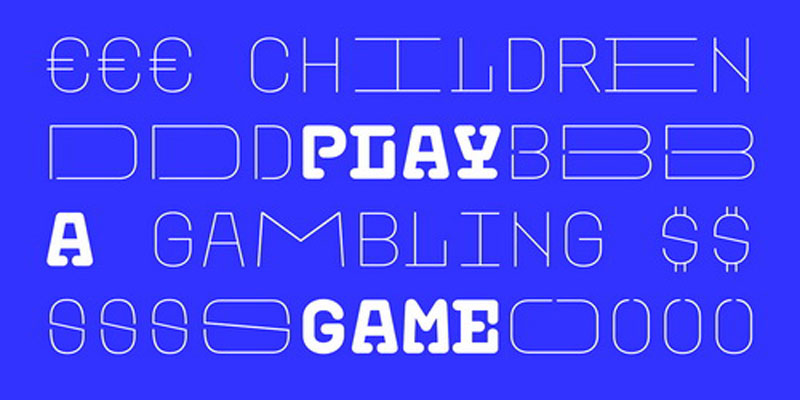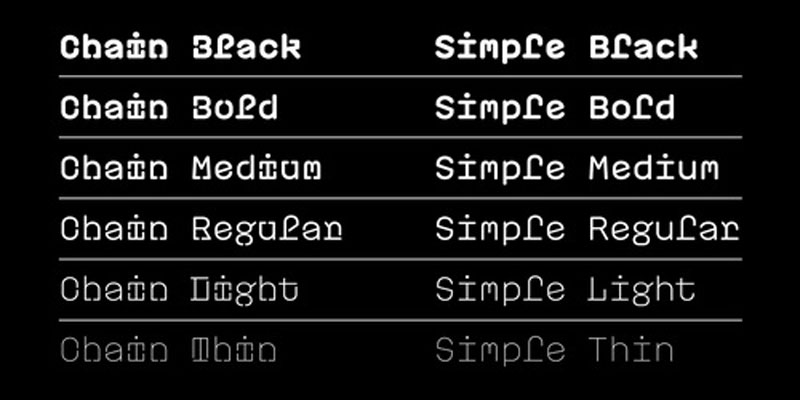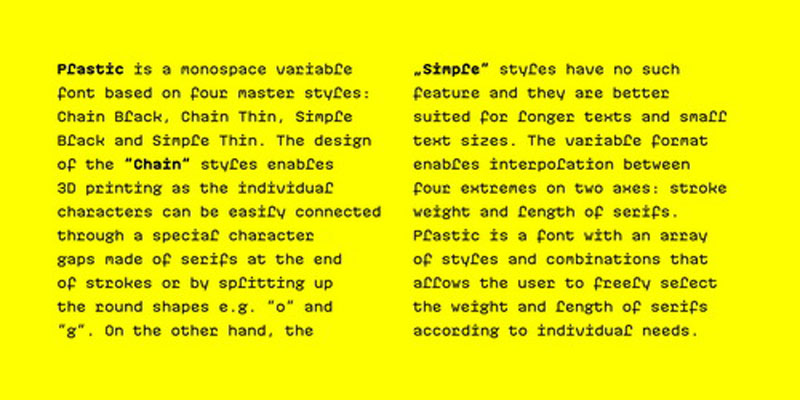
Plastic Font Family
Plastic is a monospace variable font based on four master styles: Chain Black, Chain Thin, Simple Black and Simple Thin. The design of the “Chain” styles enables 3D printing as the individual characters can be easily connected through a special character gap made of serifs at the end of strokes or by splitting up the round shapes e.g. “o” and “g”. On the other hand, the “Simple” styles have no such feature and they are better suited for longer texts and small text sizes.
The variable format enables interpolation between four extremes on two axes: stroke weight and length of serifs. Plastic is a font with an array of styles and combinations that allows the user to freely select the weight and length of serifs according to individual needs.